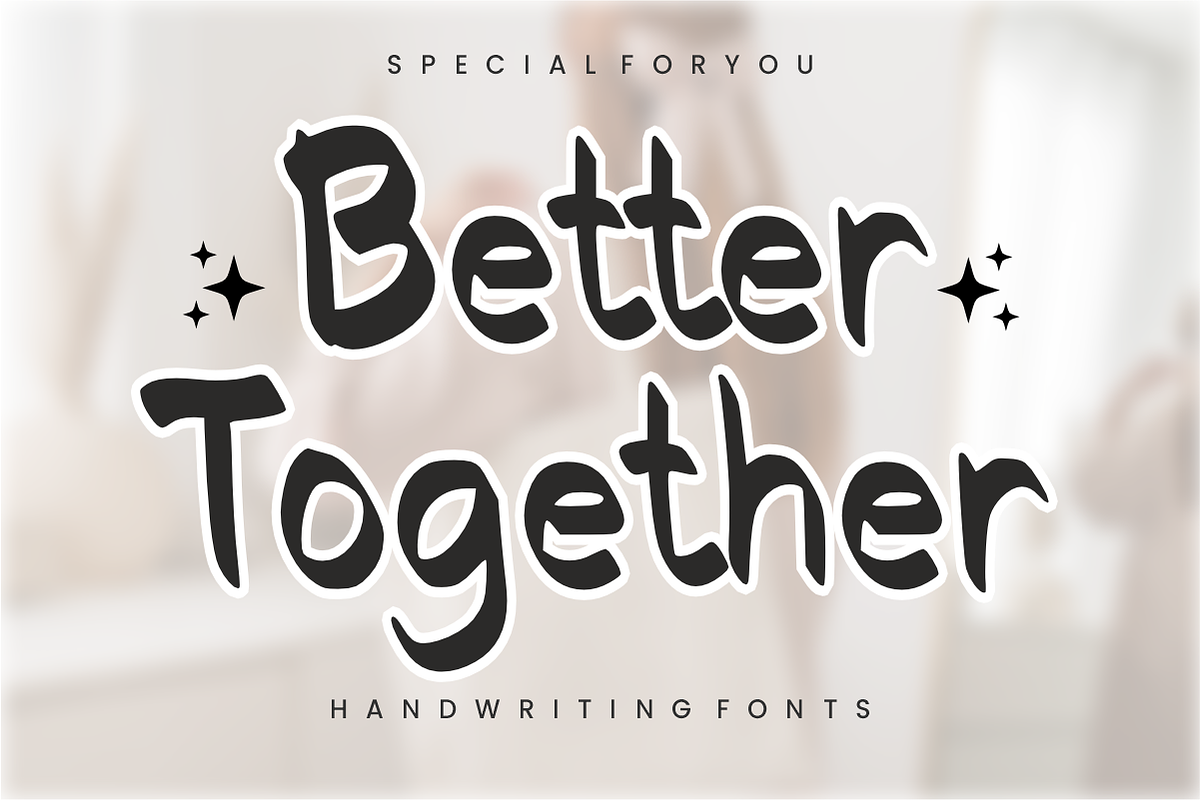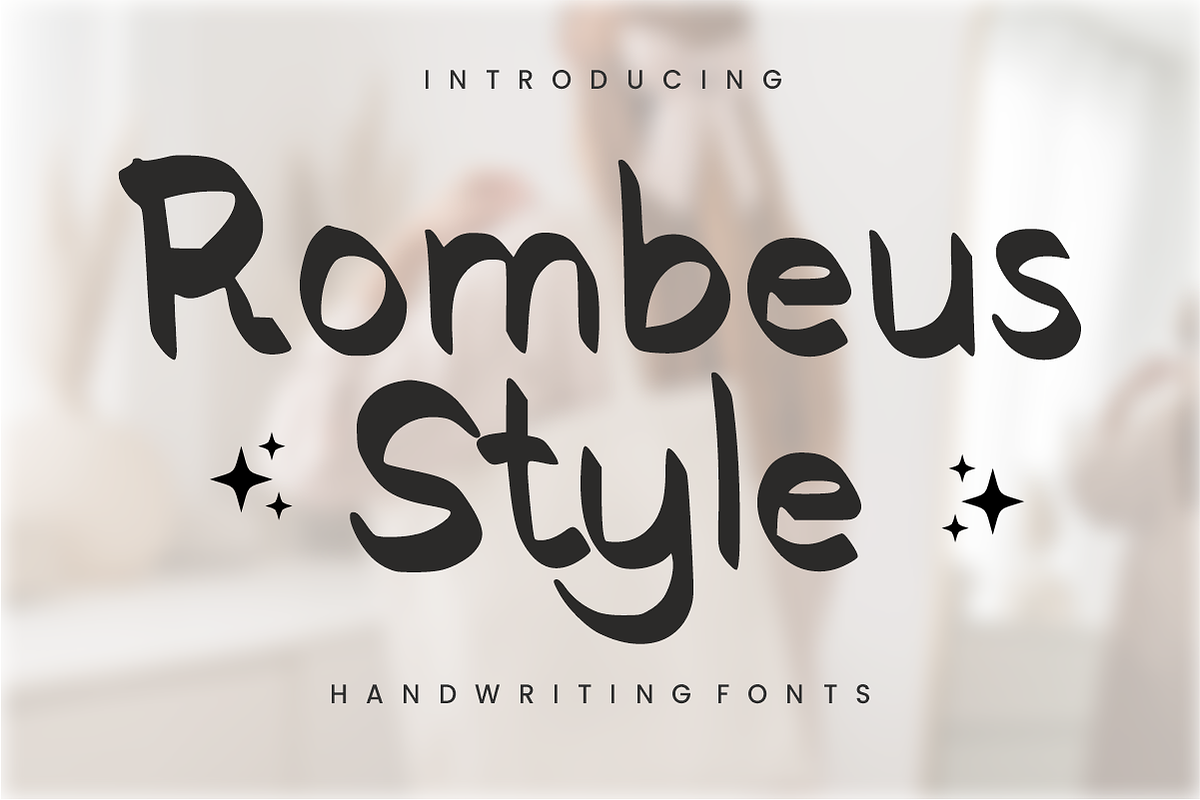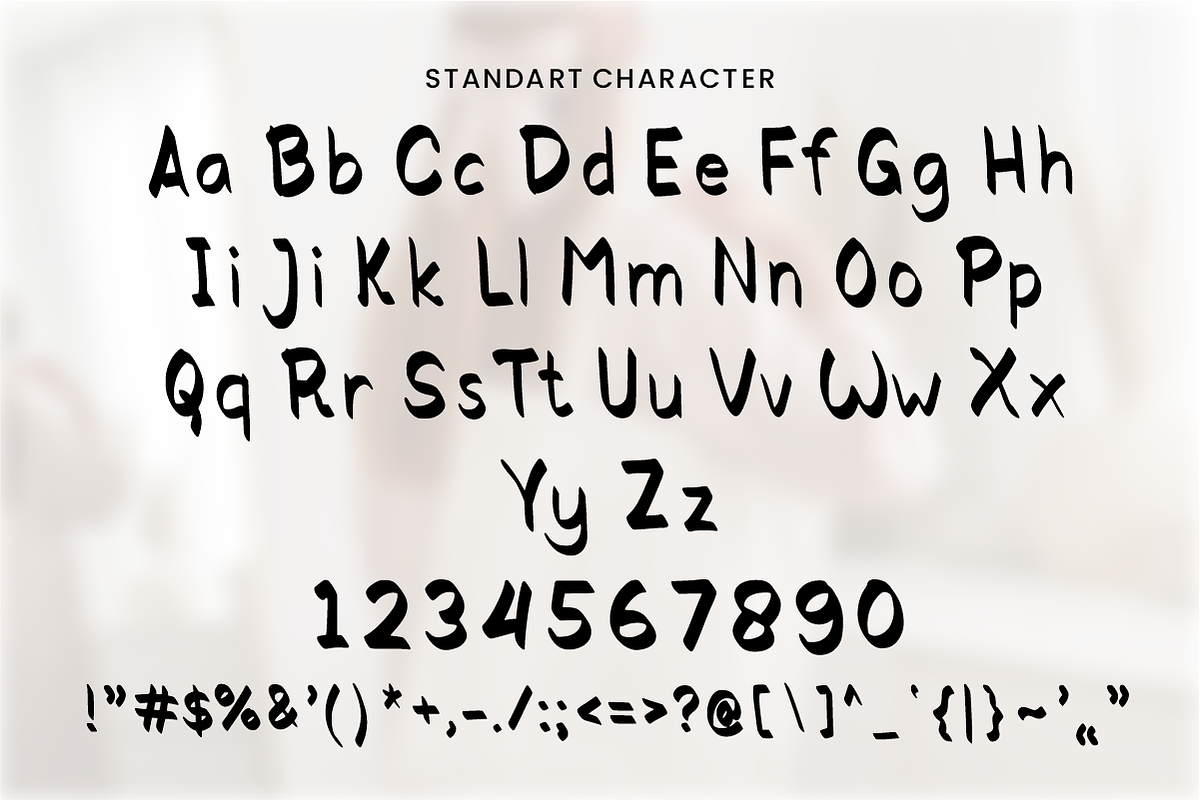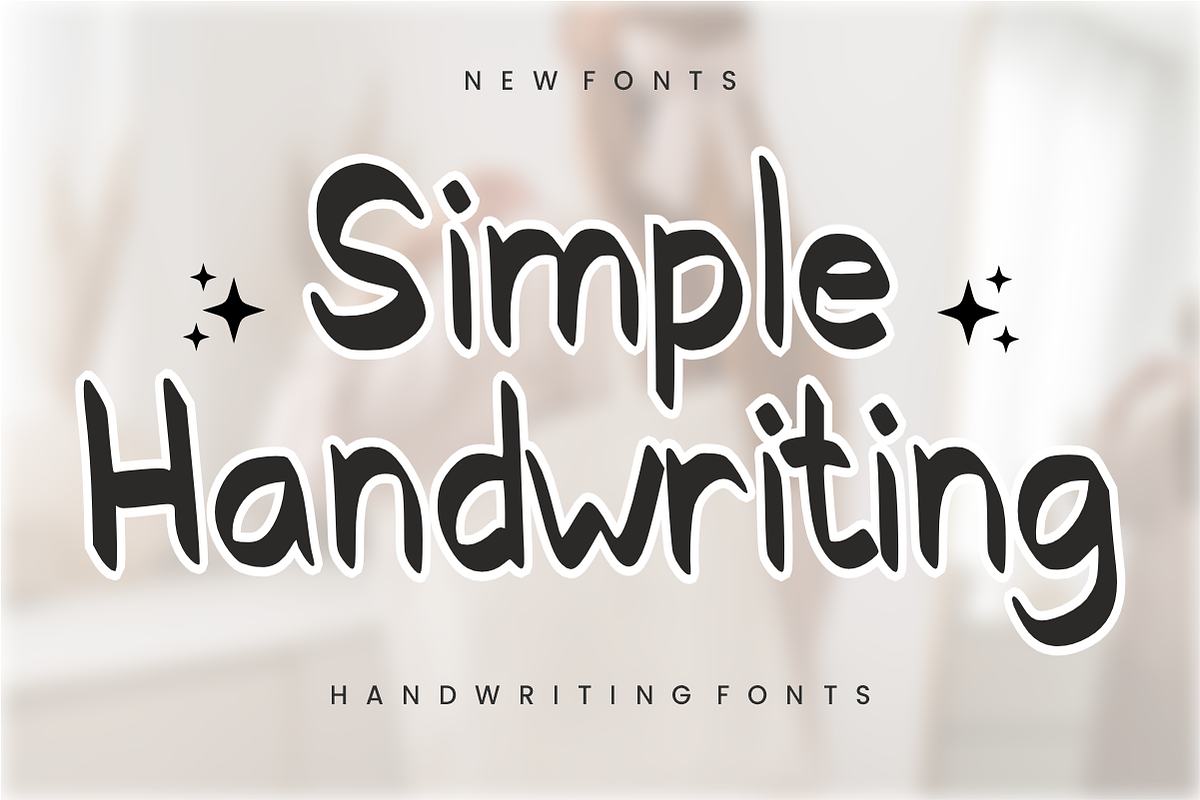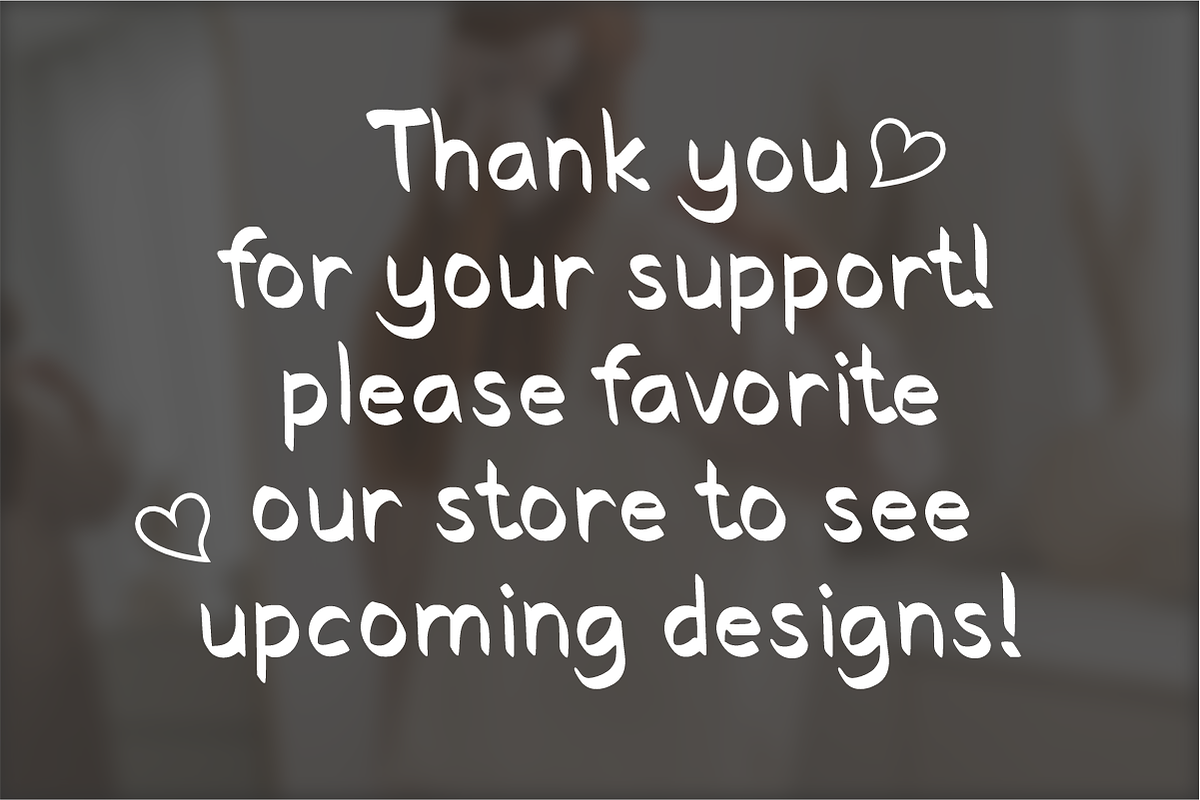
Rombeus Style – Modern Handwriting
Rombeus Style – Chic & Modern Handwritten Font ✨✒️ Add an authentic human touch to your modern designs!
Rombeus Style is a contemporary handwritten font that strikes the perfect balance between casual charm and professional clarity. With its organic lines and effortless flow, this font is designed to give your projects a warm, approachable, and high-end feel. Whether you’re building a brand from scratch or adding a personal signature to your social media, Rombeus Style delivers a clean aesthetic that never goes out of style.
🌟 Why Rombeus Style Stands Out: Authentic Handcrafted Feel: Every stroke is designed to mimic natural handwriting, ensuring your designs look unique and personal.
Versatile & Legible: Unlike overly decorative scripts, Rombeus Style remains highly readable even at smaller sizes, making it perfect for both print and digital use.
Minimalist Aesthetic: Its "clean-line" design fits perfectly with current minimalist branding trends.
🎨 Perfect For: 🏷️ Branding & Logos: Create memorable visual identities for boutiques, lifestyle brands, and creative studios.
📸 Social Media Content: Perfect for Instagram quotes, YouTube thumbnails, and authentic blog headers.
📦 Packaging & Labels: Add a sophisticated, handcrafted touch to product tags, cosmetics, and organic goods.
💌 Stationery & Invitations: Beautiful for thank-you notes, modern wedding RSVP cards, and personal stationery.
📖 Digital Journaling: Ideal for Procreate or GoodNotes users looking for a stylish custom font.
Numbers & Symbols: Complete numerals (0-9) and essential simple punctuation.